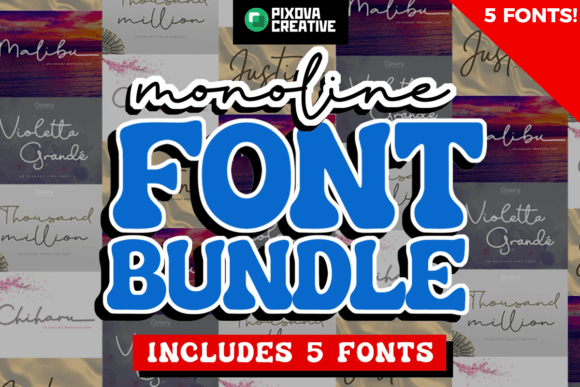
Monoline 5 Script Bundle Font
About the Monoline 5 Script Bundle Font
Discover the charm of Monoline 5 Script Bundle Font. This font is a perfect blend of modern aesthetics and classic appeal. The Monoline 5 Script Bundle is a collection of five stylish handwriting fonts. Each font has smooth, flowing lines that create a modern and elegant look. Perfect for adding a personal touch to your designs, like invitations or logos!
This script bundle excels in applications requiring a touch of elegance and sophistication, such as wedding invitations, branding for luxury goods, or short, impactful quotes in marketing materials. Its flowing lines also lend themselves well to logo design and stylish packaging for products aiming for a premium feel. However, due to its script nature, it’s less suitable for body text or lengthy paragraphs, and its readability suffers at smaller sizes. Avoid using it in UI design or other applications requiring high legibility.
For optimal visual balance, pair Monoline 5 Script with a clean sans-serif font like Montserrat or Open Sans for body copy. A classic serif like Garamond or a more geometric sans-serif like Futura can also create a striking contrast, depending on the desired aesthetic. Consider using a simple, neutral sans-serif for supporting text to prevent visual clutter.
The overall personality of Monoline 5 Script is sophisticated and modern, conveying a sense of refined elegance without being overly fussy. It’s ideal for brands projecting a premium image, emphasizing quality, and seeking a touch of handwritten authenticity.
Monoline 5 Script Bundle Font Usage Examples
Monoline 5 Script Bundle Font Example